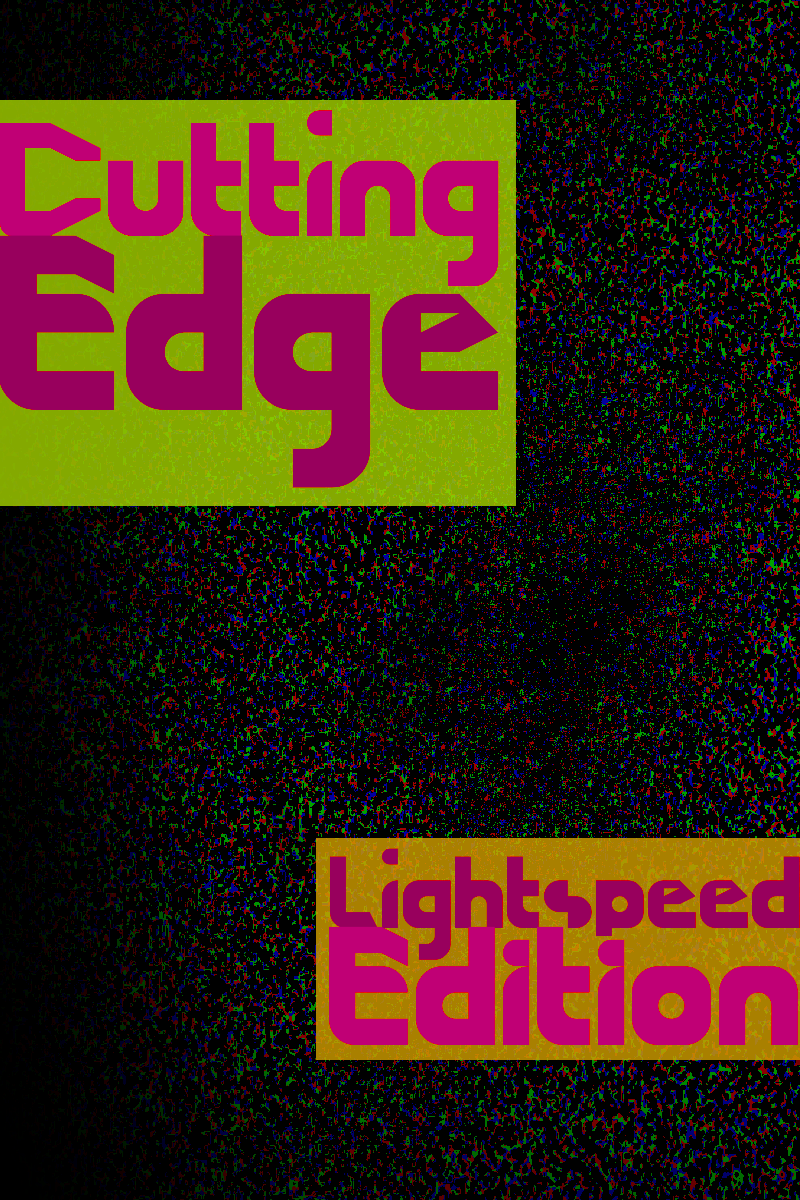
| Font name: | Cutting Edge Lightspeed |
| Author: | NathanCaldecott |
| Note by NathanCaldecott | |
"A font designed for posters and the suchlike, but not for small text. Similar to the original Cutting Edge, available here ([link]), this font is modified to look more corporate. Lower case letters and accessories mainly stay the same, although some have been modified into a more simple design. All capitals have been redesigned, with a more clean-cut look, although still retaining a 'Cutting Edge'. As with the original, the font misses some minor accessories but includes basic accessories like dot, comma, numbers etc... Also included in the package is a promotional poster to show how the font could be used, aswell as a second font, which has shorter capitals (In the original, capitals were around 4 units, this has been revised to 3) to give a more punchy and corporate look." Revised version of 'Cutting Edge'. Comes in 2 styles. Made in 2009. |